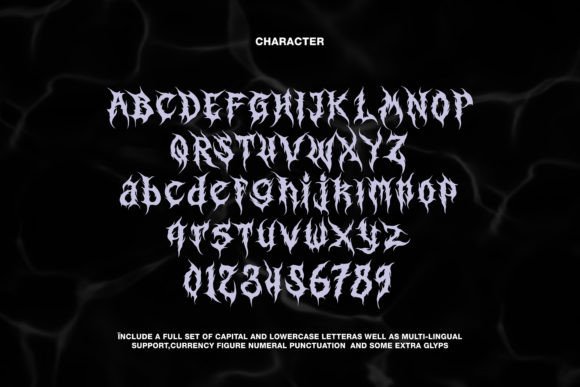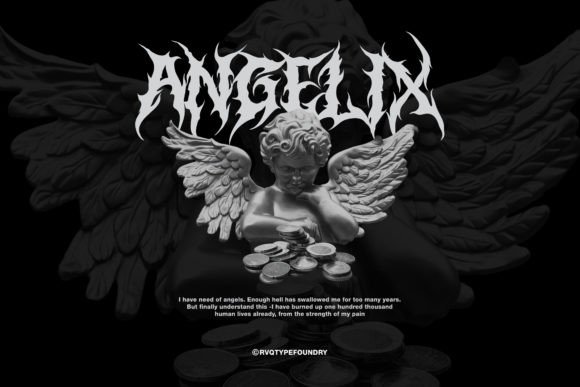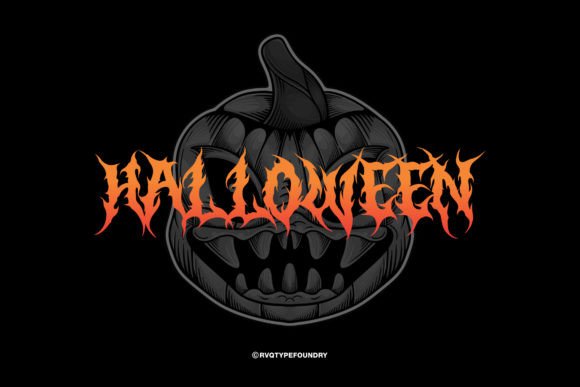
Break Gothic Font
Break Gothic is a cool and edgy display font inspired by the brutal aesthetics of death-metal culture. Its sharp, angular letterforms and bold strokes exude power and intensity, making it perfect for creating impactful headlines, album covers, and posters. Whether you're unleashing your inner rocker or exploring dark themes, Break Gothic commands attention with its raw and rebellious style.